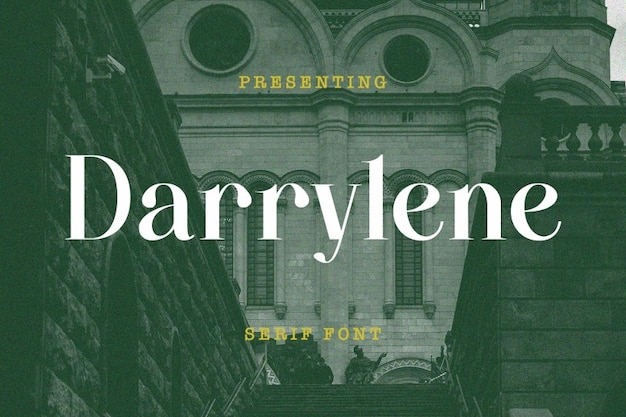
Darrylene Font
Elegance meets modern chic in Darrylene, a font that effortlessly marries sophistication with contemporary style. Each letter is a brushstroke of refined design, creating a visual symphony of tasteful grace. Darrylene’s sleek lines and tasteful curves exude an understated glamour, making it the go-to choice for projects that demand a touch of timeless sophistication. Whether you're crafting invitations, logos, or any design calling for a dash of class, Darrylene stands as a beacon of modern elegance, ensuring your creations shine with a poised and stylish allure.